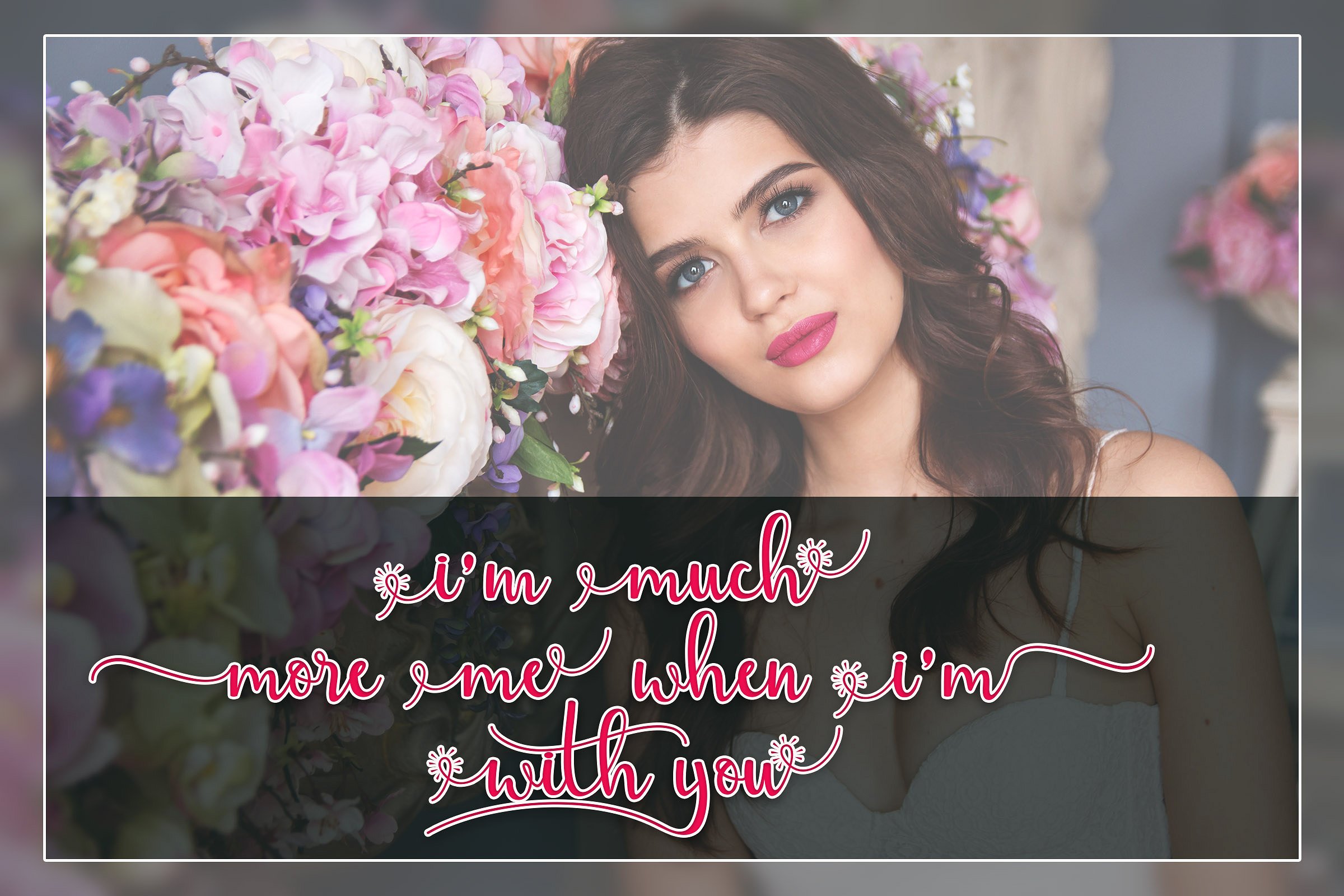
Streetlight Script
Streetlight Script Font
Streetlight a new fresh & modern script with a handmade calligraphy style, decorative characters and a dancing baseline! So beautiful on invitation like greeting cards, branding materials, business cards, quotes, posters, and more!!